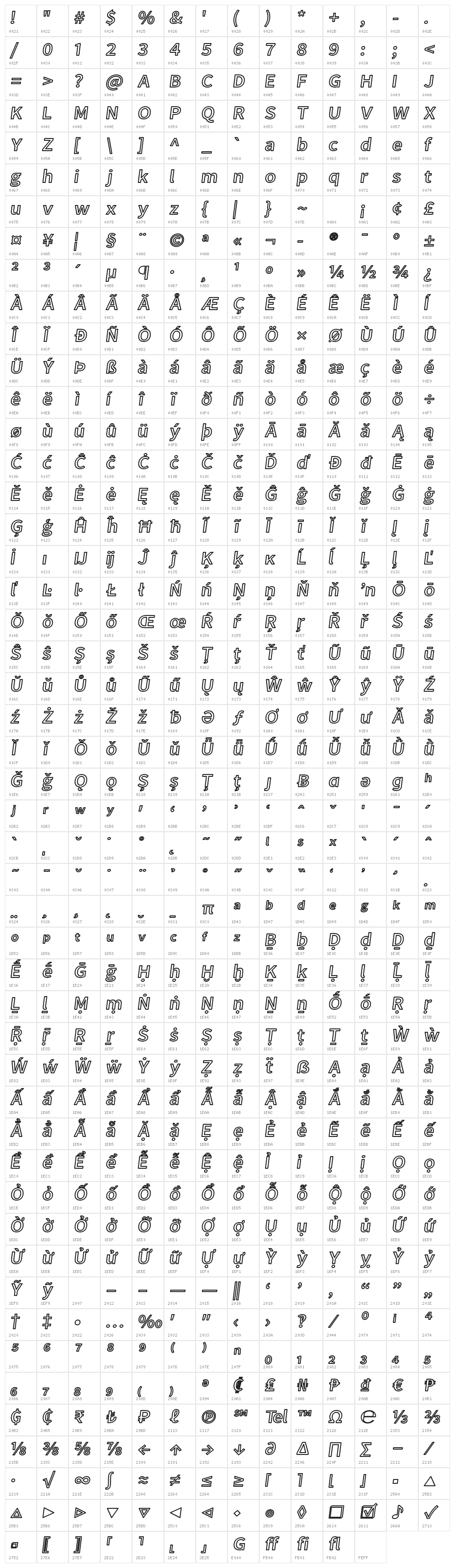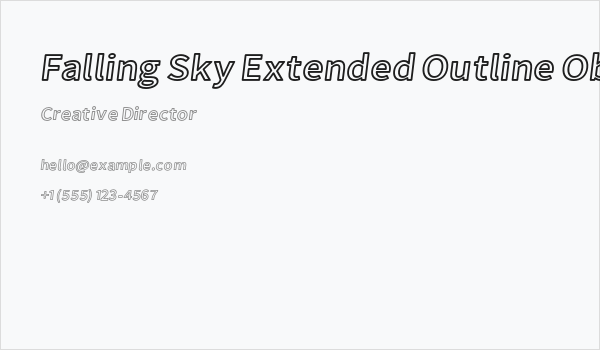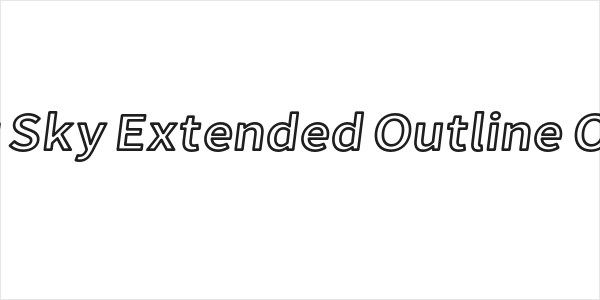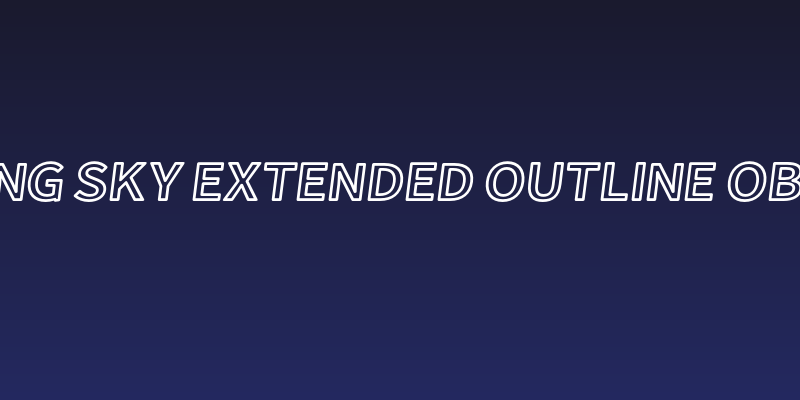
Falling Sky Extended Outline Oblique Font
Falling Sky Extended Outline Oblique Description
This font features an extended outline style with an oblique slant, giving it a modern and dynamic appearance. The uppercase and lowercase letters are well-proportioned, with a consistent stroke width that creates a balanced look. The numerals are clear and easily distinguishable, while the special characters maintain the same stylistic approach, ensuring uniformity across all glyphs. The outline effect adds a layer of depth, making the text stand out without being overly bold. This font is suitable for projects that require a contemporary and eye-catching design.
| Proposed Projects | Ideal for headlines, posters, branding, and digital media where a striking and modern look is desired. |